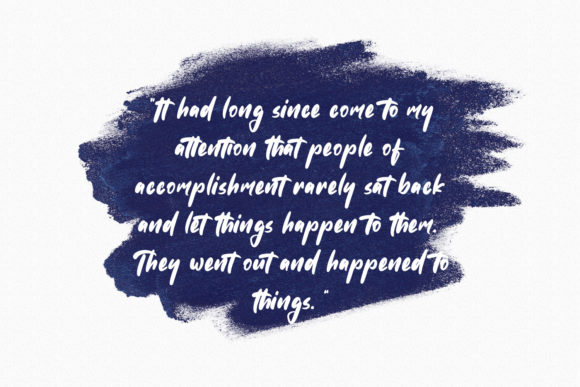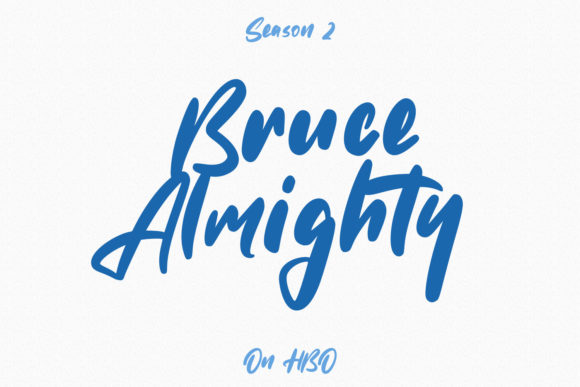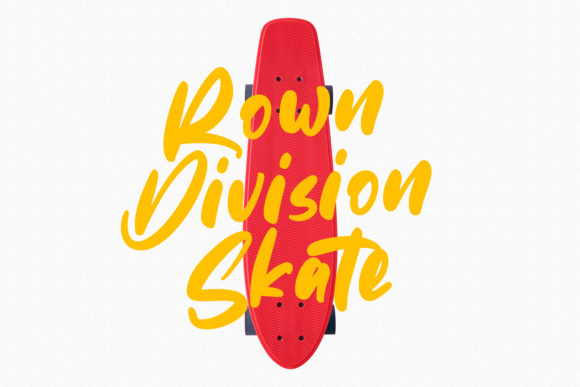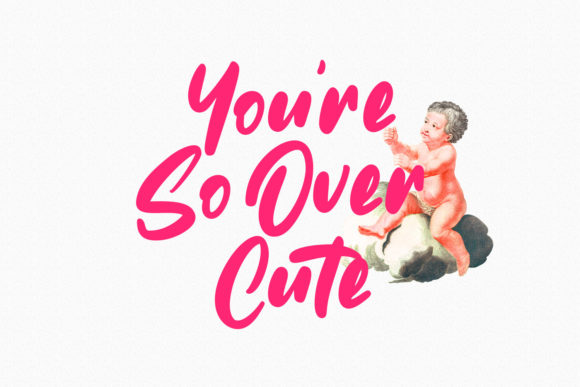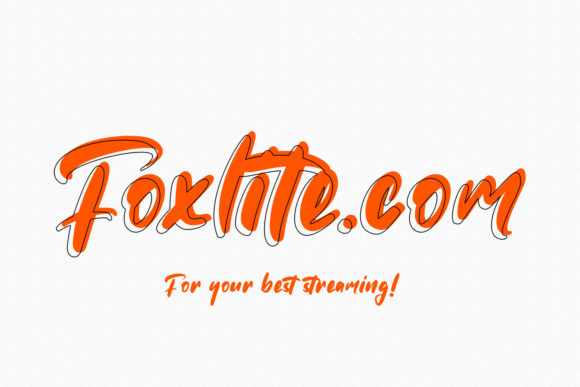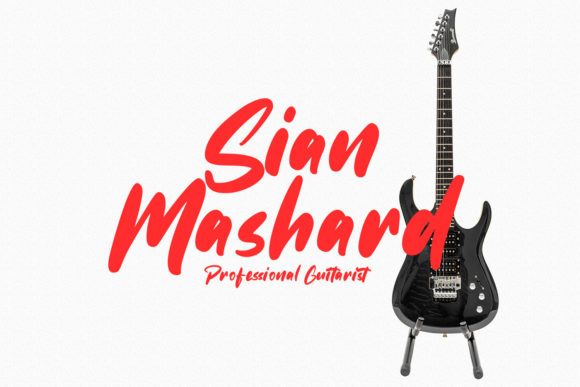
The Joy of Foxity Font: A Playful Companion for Creative Projects
I’ll never forget the moment I stumbled upon Foxity Font while working on a children’s activity book project. I was on a tight deadline, and my design was feeling flat and uninspiring. I needed a font that would bring a smile to kids’ faces and make the content feel approachable and fun. After scouring through font libraries and browsing online marketplaces, I finally found Foxity – a cute and friendly display font that instantly elevated my design.
An Honest Review of Foxity Font
What I Love About Foxity ✨
- ✅ Playful and authentic vibe that’s perfect for children’s content
- ✅ Highly legible, even at smaller sizes
- ✅ Extensive character set, including glyphs and stylistic alternates
- ✅ Works beautifully for titles, headings, and short paragraphs
- ⚠️ Limited suitability for body text or long-form content
- ⚠️ May not be the best choice for formal or professional projects
The Backstory Behind Foxity Font
Foxity Font was designed with the intention of creating a playful and authentic typography solution for children’s content. The designer aimed to craft a font that would embody the spirit of childhood and bring joy to kids and designers alike. With its cute and friendly appearance, Foxity has become a popular choice for school projects, children’s activity books, and creative endeavors.
| Q: What type of projects is Foxity Font best suited for? | A: Foxity Font is perfect for children’s activity books, school projects, and creative endeavors that require a playful and authentic touch. |
| Q: Does Foxity Font support OpenType features? | A: Yes, Foxity Font supports OpenType features, including glyphs and stylistic alternates. |